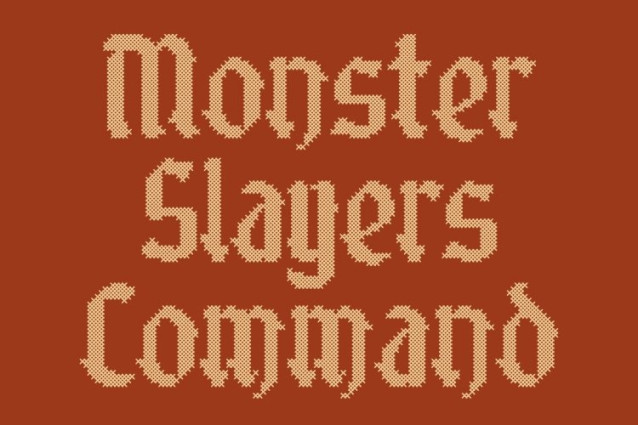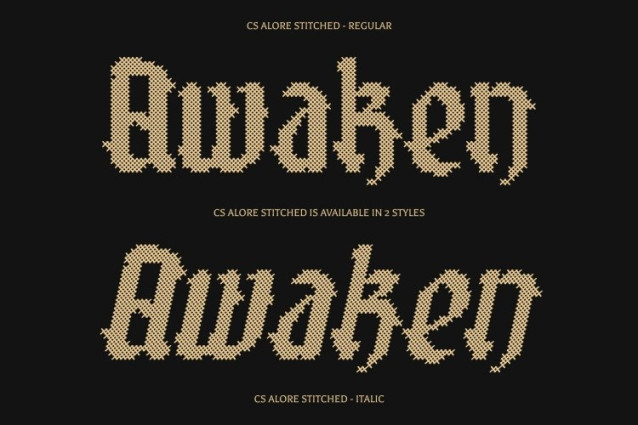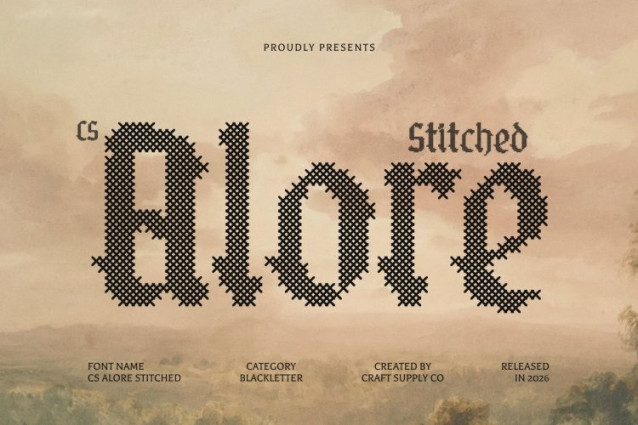
CS Alore Stitched Font
CS Alore Stitched Font – This is a Blackletter Gothic display serif font that skillfully merges intricate, medieval-inspired letterforms with a refined contemporary touch. It exudes grandeur and historical depth while maintaining a modern sensibility. Enhanced with a stitched style inspired by thread sewn or embroidered on fabric, this version introduces warmth and tactile character to its dramatic structure.
Grand, Authoritative Forms with Embossed Stitch Texture
The complex and ornate design of creates a commanding visual presence. A distinctive cross-shaped stitch pattern adds an embossed and structured texture to each letterform, giving the font a fabric-like, handcrafted feel. This stitched detailing brings a classic, nostalgic, relaxed, and warm impression beautifully balancing the bold Gothic intensity with a more personal and expressive touch.
Versatile for Luxurious, Formal, and Craft-Inspired Projects
Ideal for luxury branding, formal invitations, themed events, editorial headlines, and statement-making visuals, delivers both authority and elegance. The stitched texture also expands its versatility, making it suitable for clothing logos, craft-themed designs (DIY), school projects, and creative branding that seeks a distinctive textured aesthetic.
A Harmony of Tradition and Contemporary Style
By blending the historical richness of Blackletter Gothic with modern refinement and handcrafted stitched detail, offers a unique balance of tradition and innovation. The result is a timeless yet expressive typeface that enhances any design with depth, sophistication, and memorable character.